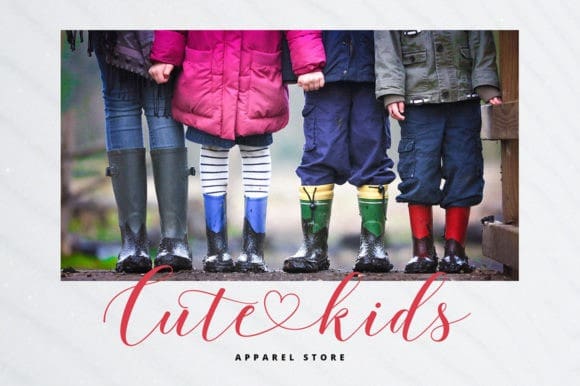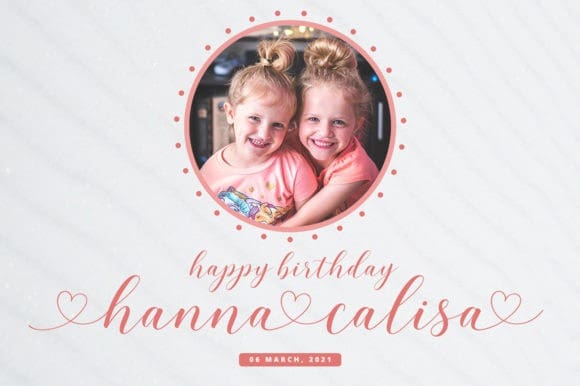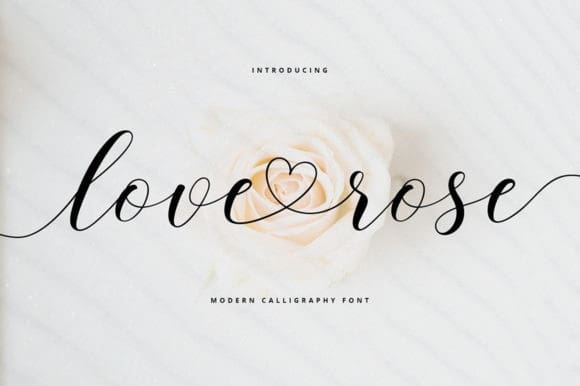
Love Rose Font
Love Rose Font is a beautiful light handwritten font with a unique feel and a stunning impact. It will add a luxury spark to any design project that you wish to create! This font is PUA encoded which means you can access all of the amazing glyphs and ligatures with ease!